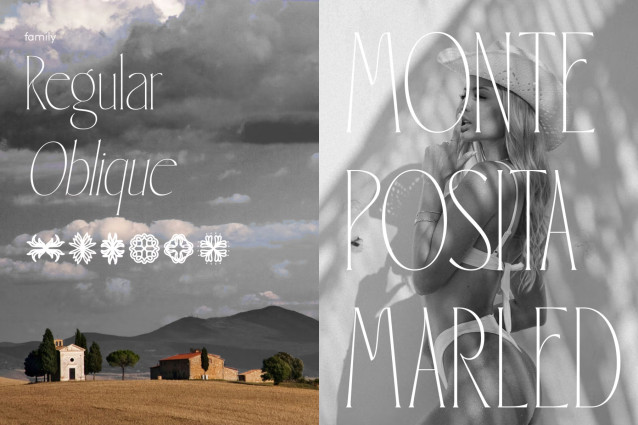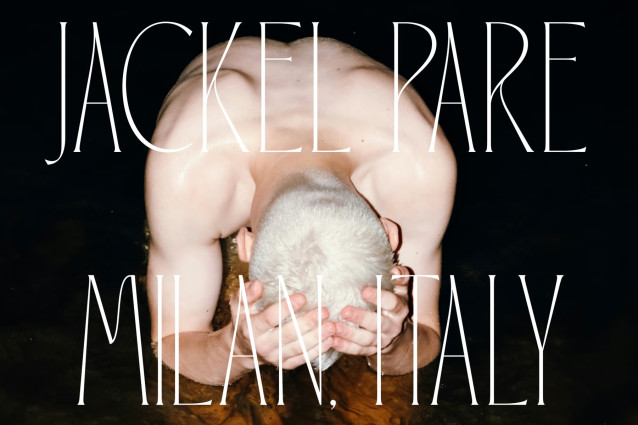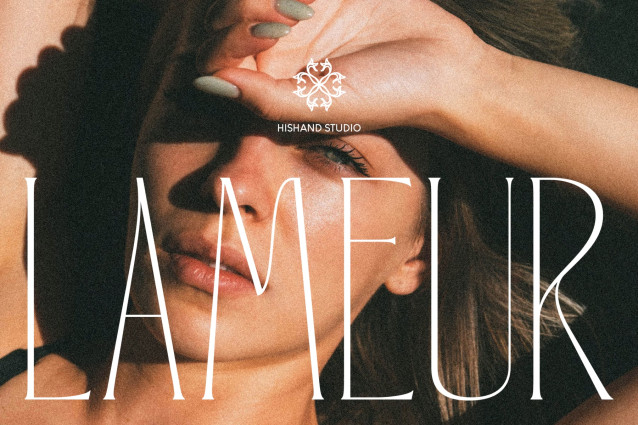
Lameur Thin Serif Display Font
Lameur is an elegant thin serif display typeface designed for luxury and high fashion branding. Its tall, slender letterforms carry graceful proportions and refined stroke contrast, giving every word a sense of quiet sophistication. Inspired by the clean lines of couture design, Lameur brings a premium, editorial feel to any project it touches. The typeface draws its character from the world of high fashion, where restraint and precision speak louder than decoration. Each letter is drawn with careful attention to negative space, so that even a single word set in Lameur Thin Serif Display Font feels intentional and considered. This makes it especially suited to brands that want to communicate exclusivity without relying on heavy ornamentation.
Perfect for luxury logos, fashion branding, magazine headers, wedding invitations, perfume packaging, and boutique product labels, Lameur transforms simple text into a statement of elegance. The delicate balance between thin strokes and tall x height gives it strong visual presence even in minimal designs, while keeping clarity and readability intact at display sizes.
Lameur performs beautifully across a range of luxury applications. On packaging, its tall proportions create a sense of height and prestige on the shelf. In editorial layouts, its slender forms allow headlines to breathe, giving magazines and lookbooks a refined, gallery like quality. For wedding stationery, the typeface lends a romantic, timeless tone that suits both modern and classic celebrations.
From building a high end brand identity to crafting an invitation that needs to feel timeless, Lameur delivers the beauty and refinement your design deserves. Its graceful silhouette suits fashion houses, jewelry brands, cosmetics lines, hotels, and hospitality projects alike. Every curve and taper reflects careful craftsmanship, making Lameur a typeface that speaks quietly but leaves a lasting impression on anyone who sees it.
Designers looking for a serif that feels both modern and enduring will find Lameur a versatile addition to their toolkit. It pairs well with clean sans serif body text, minimalist layouts, and neutral color palettes, letting its own elegance take center stage. Lameur Thin Serif Display Font shapes a brand identity built on taste, clarity, and lasting elegance.